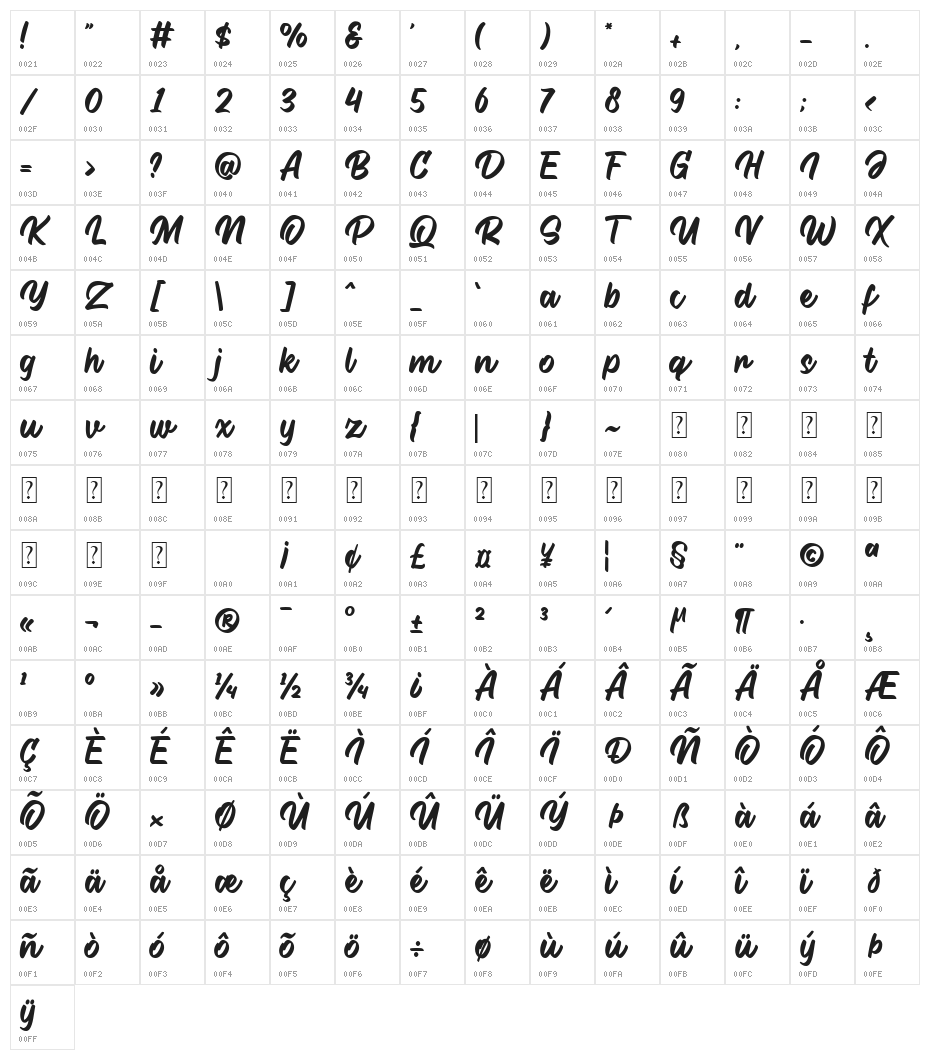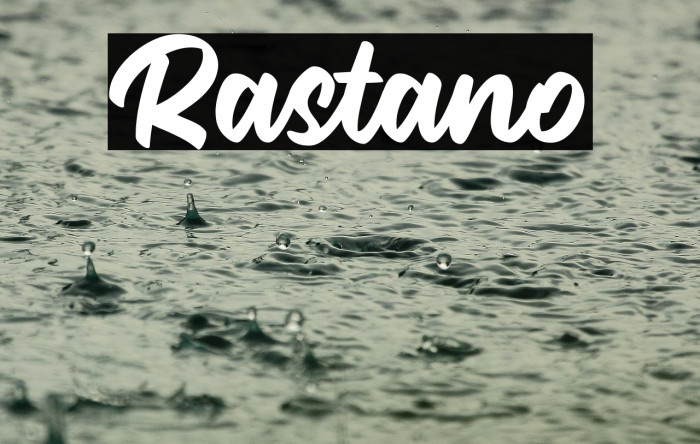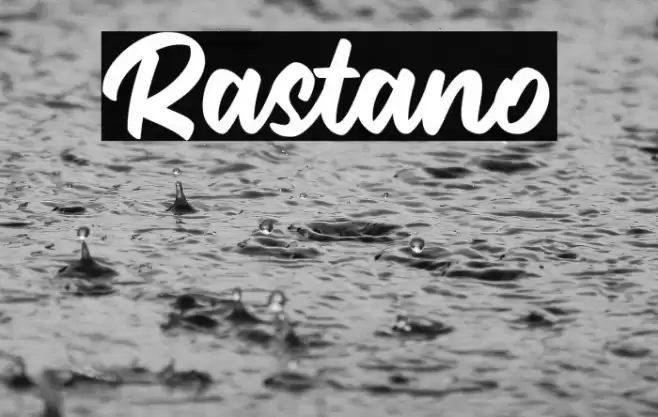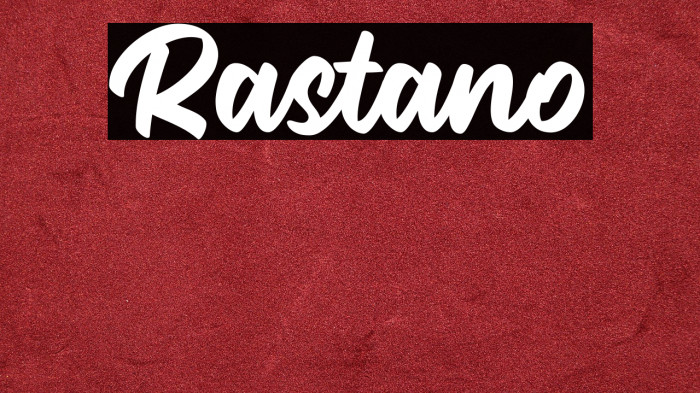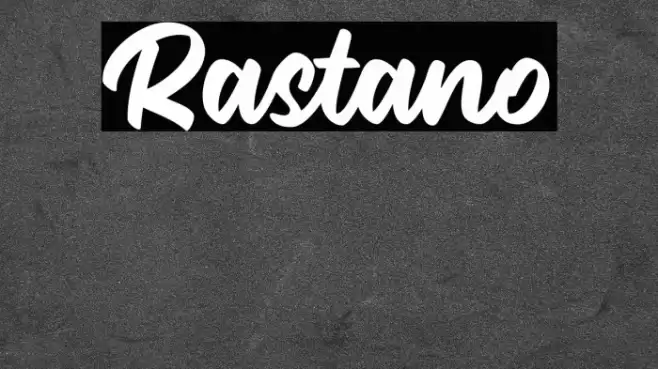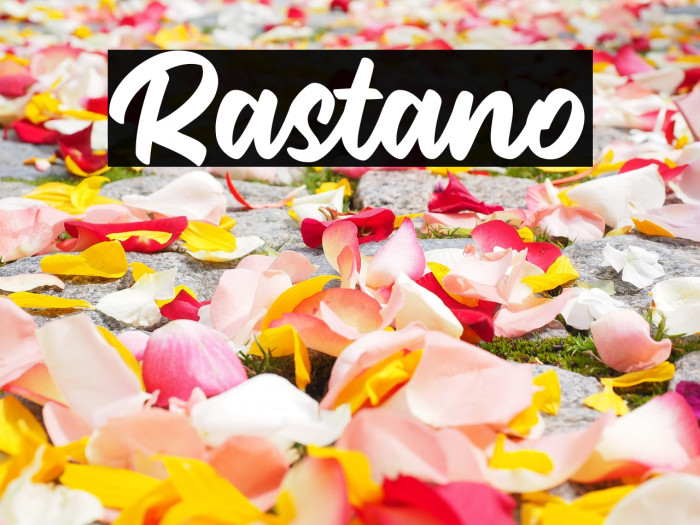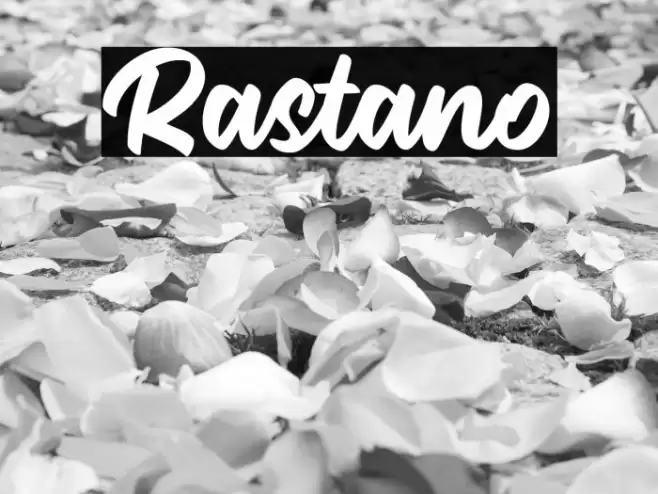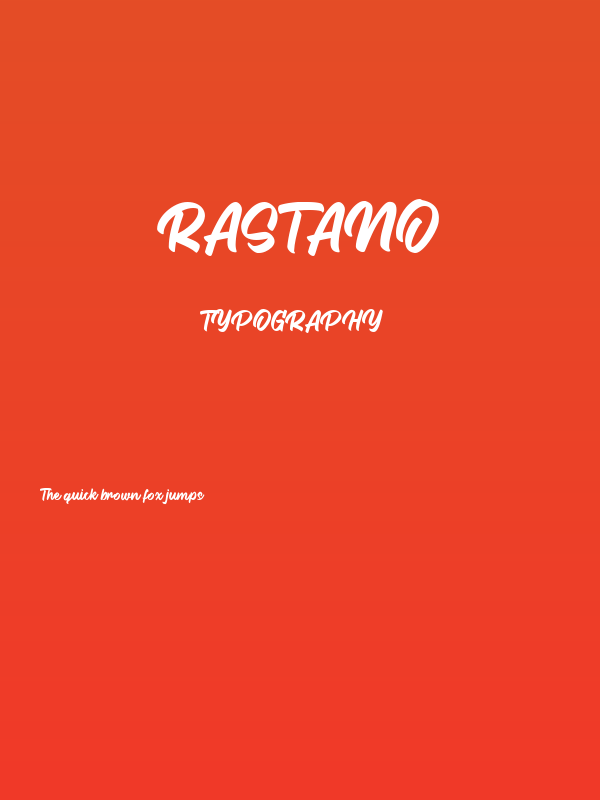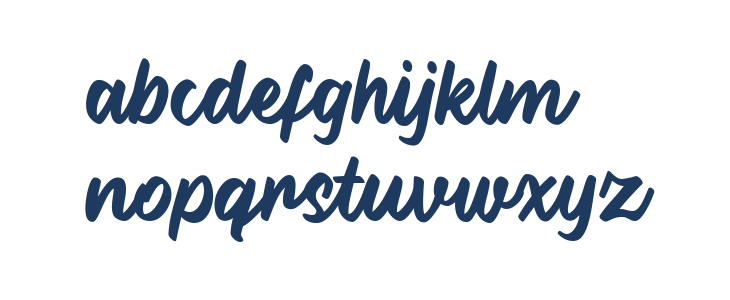
Rastano Font
Rastano Description
This font features a bold, cursive style with smooth, flowing lines that create a sense of movement and elegance. The uppercase letters are slightly larger and more pronounced, while the lowercase letters maintain a consistent flow, enhancing readability. The numbers and special characters are designed to match the overall aesthetic, providing a cohesive look. The strokes are thick and uniform, giving the font a strong presence. This font is ideal for projects that require a touch of sophistication and flair, such as invitations, branding, and decorative signage.